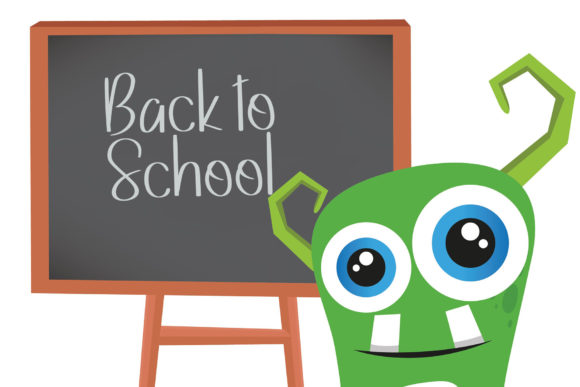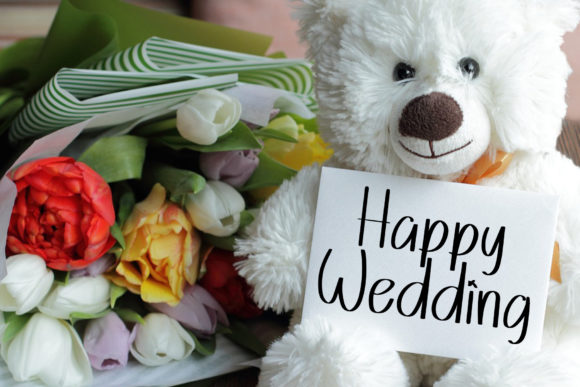
Sweet Sugar Font
db-ku.com - Script & Handwritten -- Sweet Sugar is a cute, refined script font that emanates sophistication and elegance. It’s stylish alternates and ligatures make this font the perfect match for any project.